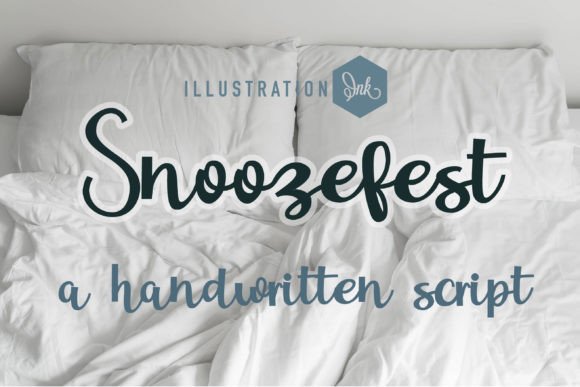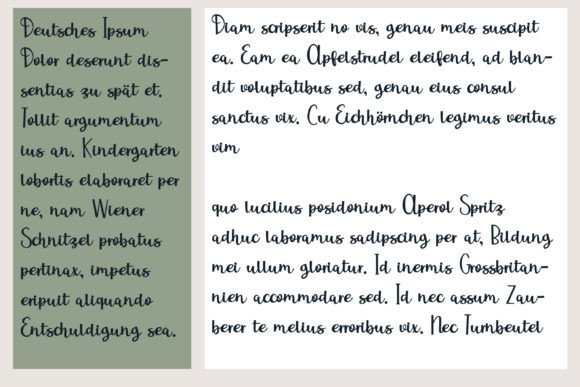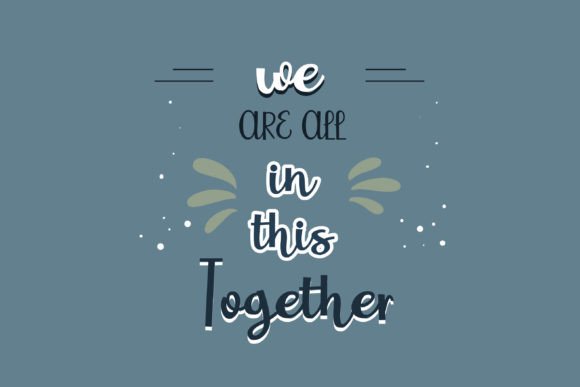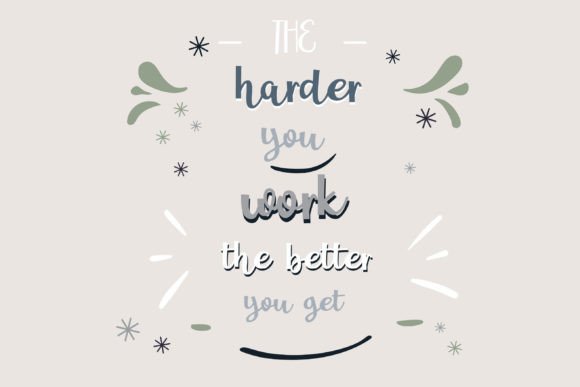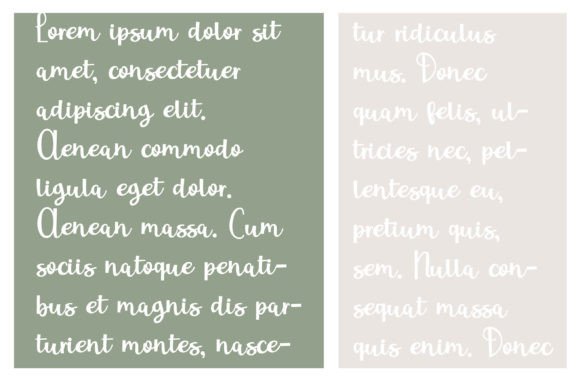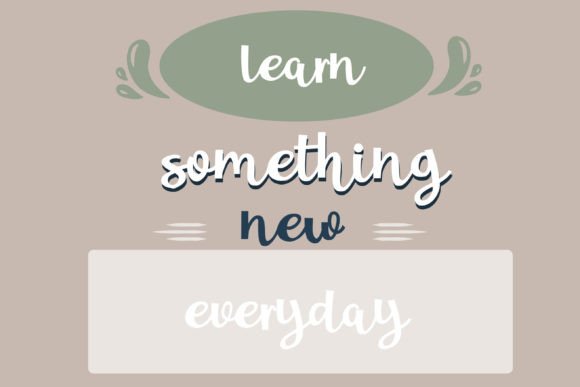
About Snoozefest Font
Snoozefest Font Download introduces a simple, fun handwritten typeface designed to bring warmth and playfulness to your creative projects. Its clean yet quirky strokes make it ideal for anyone looking to add a personal and casual touch to their typography.
This font blends readability with charm, making it versatile enough to work across digital and print platforms. From greeting cards to branding materials, Snoozefest adapts seamlessly to both professional and casual design needs.
Playful and Versatile Design
The Snoozefest font is more than just a handwritten style—it’s a creative tool for multiple uses. Its natural flow and balanced letterforms allow it to shine in both small details and bold designs. Some popular uses include:
Greeting cards and wedding invitations
Craft projects and handmade labels
Digital designs, social media graphics, and blogs
Posters, flyers, and event announcements
Branding for boutique shops and small businesses
Its approachable look makes it a true favorite for designers seeking a friendly yet polished typeface.
Perfect for Print and Digital
Snoozefest’s playful charm is ideal for both print and digital applications. Use it to design creative packaging, personalized invitations, or blog headers. For modern projects, pair it with clean serif or sans serif fonts to create contrast while keeping the text easy to read.